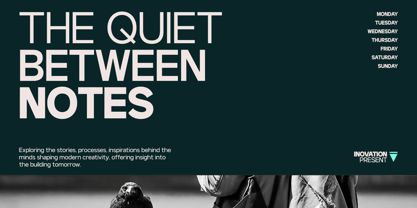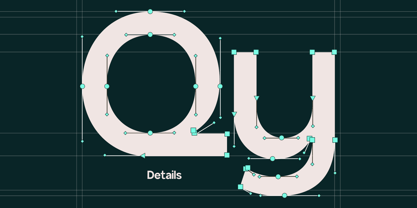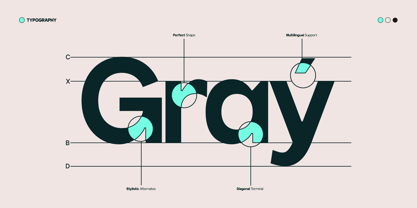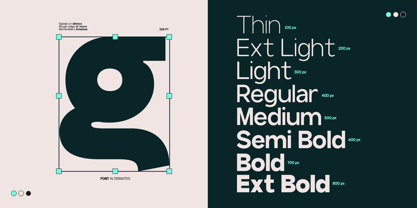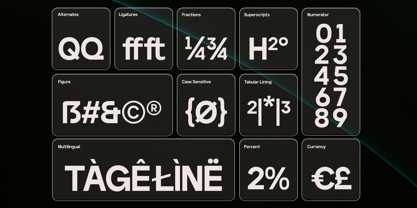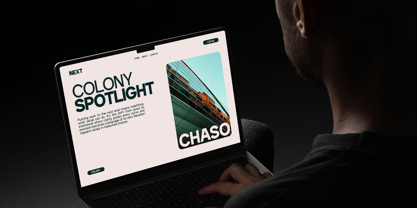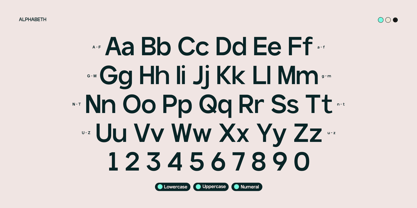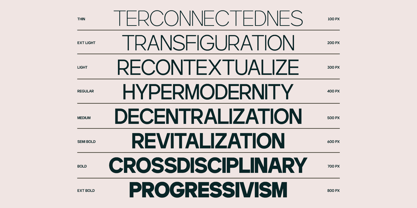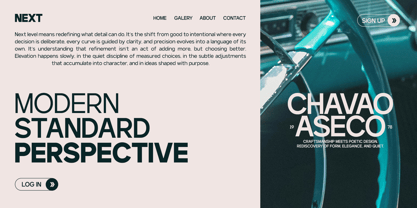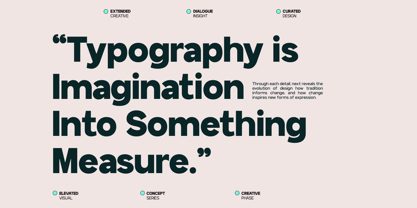
GC Protage
Die Schriftfamilie GC Protage wurde von Muhammad Hafiizh Solana entworfen und von Onyx Studio veröffentlicht. GC Protage enthält 8 Stile und Familienpaketoptionen. Mehr über diese Familie
GC Protage – Pure Modern Clarity is a contemporary sans serif typeface designed to deliver exceptional clarity, strength, and modern versatility. Built with clean geometry and confident strokes, it offers a powerful yet refined voice that performs seamlessly across both digital and print media. Created to express simplicity without losing character, GC Protage is ideal for branding, editorial layouts, tech-driven projects, and striking visual identities. With balanced proportions and precise detailing, GC Protage stands out as a highly adaptable yet distinctive typeface. Whether you’re crafting sleek user interfaces, bold headlines, or minimalist posters, this font brings clarity, modernity, and elegant impact to your typography. Features: - Uppercase & Lowercase - Numbers & Punctuation - Font Family with Multiple Weights (Thin to Extra Bold) - Modern Geometric Construction - Multilingual Support (170+ Languages) Bring strength, precision, and pure modern clarity to your design with GC Protage.